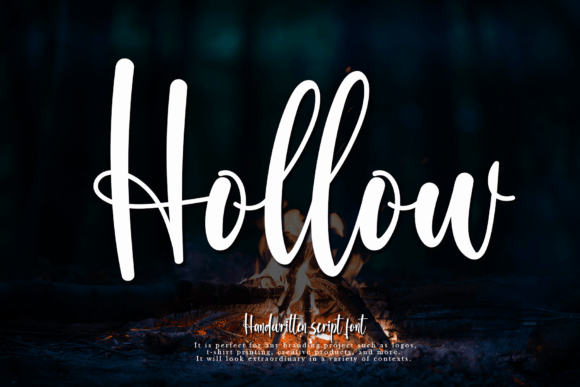
Introducing Hollow Font - The Epitome of Elegance, Creativity, and Versatility!
Discover the allure of Hollow Font, a captivating script font family that exudes sophistication and timeless beauty. With its meticulously crafted curves and delicate strokes, Hollow Font will elevate your designs to new heights of elegance and charm. Created by the renowned Plafont store, Hollow Font is a testament to the art of typography, designed to leave a lasting impression on your audience.
Unleash Your Creativity with Endless Possibilities:
Whether you're a seasoned designer or just starting out, Hollow Font is the perfect tool to bring your creative visions to life. Its versatile nature makes it suitable for a wide range of projects, from logos and branding to invitations, stationery, and wedding designs. Transform your social media posts into captivating visual masterpieces or add a touch of elegance to your business signage. With Hollow Font, the possibilities are endless.
Illuminate Your Designs with a Touch of Class:
Hollow Font exudes a classic, yet modern aesthetic that will add a touch of sophistication to any design. Its carefully balanced letterforms and graceful flourishes create a captivating visual experience that will leave your audience mesmerized. Whether you're creating a logo for your business or designing a wedding invitation, Hollow Font will add a touch of timeless elegance that will stand the test of time.
Make a Statement with Your Brand:
In today's competitive market, your brand needs to stand out from the crowd. Hollow Font is the perfect choice for creating a unique and memorable brand identity. Its distinctive style will leave a lasting impression on your customers, helping you build a strong and recognizable brand. From business cards and letterheads to social media graphics and website design, Hollow Font will elevate your brand's image and make a statement that resonates with your audience.
Elevate Your Designs to New Heights:
With Hollow Font, you'll have the power to transform ordinary designs into extraordinary works of art. Its versatile design allows you to create stunning headlines, captivating social media posts, and eye-catching marketing materials that will engage and captivate your audience. Whether you're designing for print or digital, Hollow Font will add a touch of magic to your creations, leaving your audience in awe.